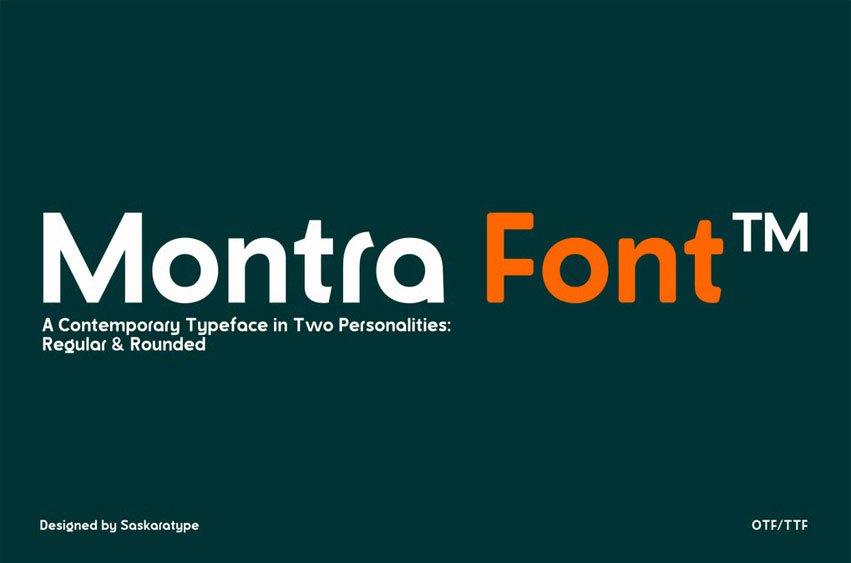
Montra Font is a modern typeface born out of a desire to balance elegance with bold structure. Designed in 2025, Montra was inspired by the clean lines, refined proportions, and understated confidence often found in contemporary editorial design and luxury branding.
The idea began with a simple observation: modern brands demand a typeface that feels sophisticated, assertive, and versatile, something that speaks yet gracefully across both print and digital spaces. Montra answers that call.
Each letterform in Montra is crafted with strong geometry and precise angles, yet softened by subtle curves that lend it a sense of modern grace. This contrast between sharp and smooth allows Montra to adapt easily to a variety of uses: from high-end fashion editorials and minimalist branding to digital interfaces that demand clarity and style.